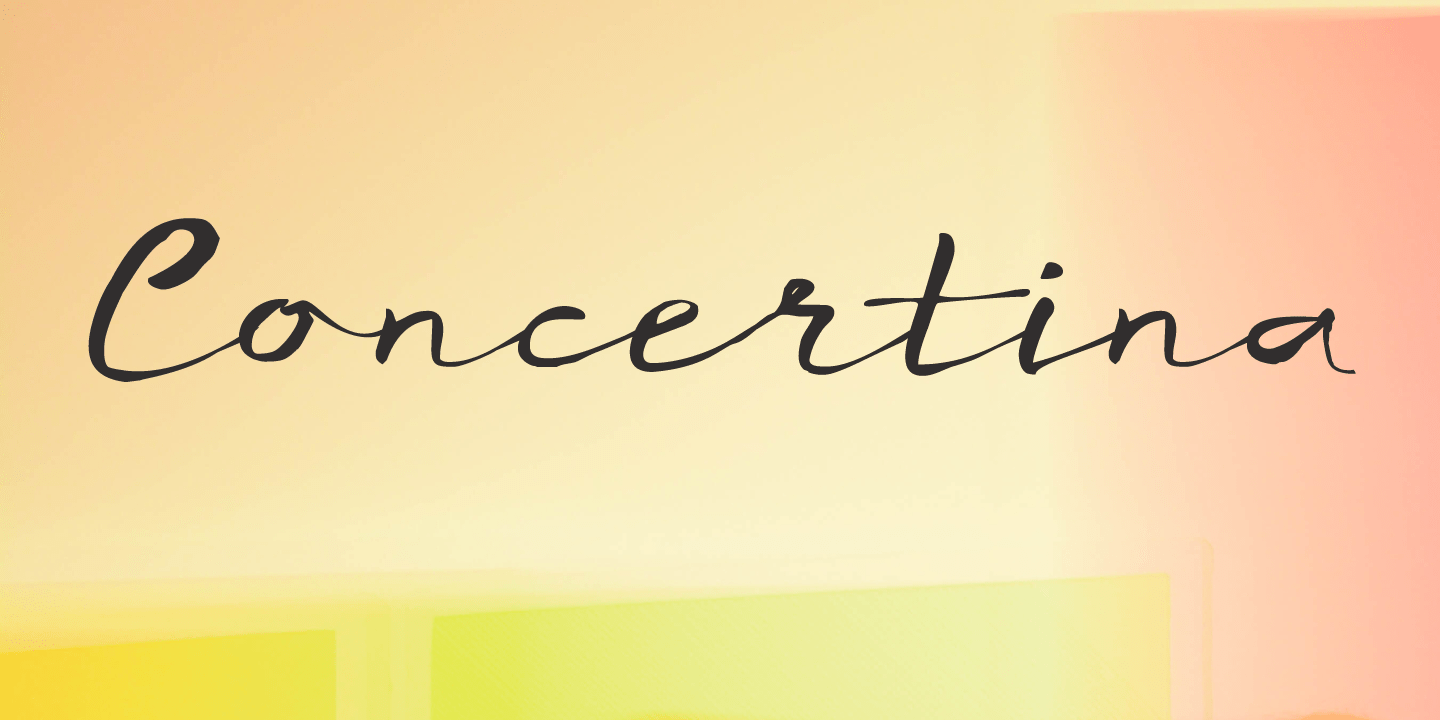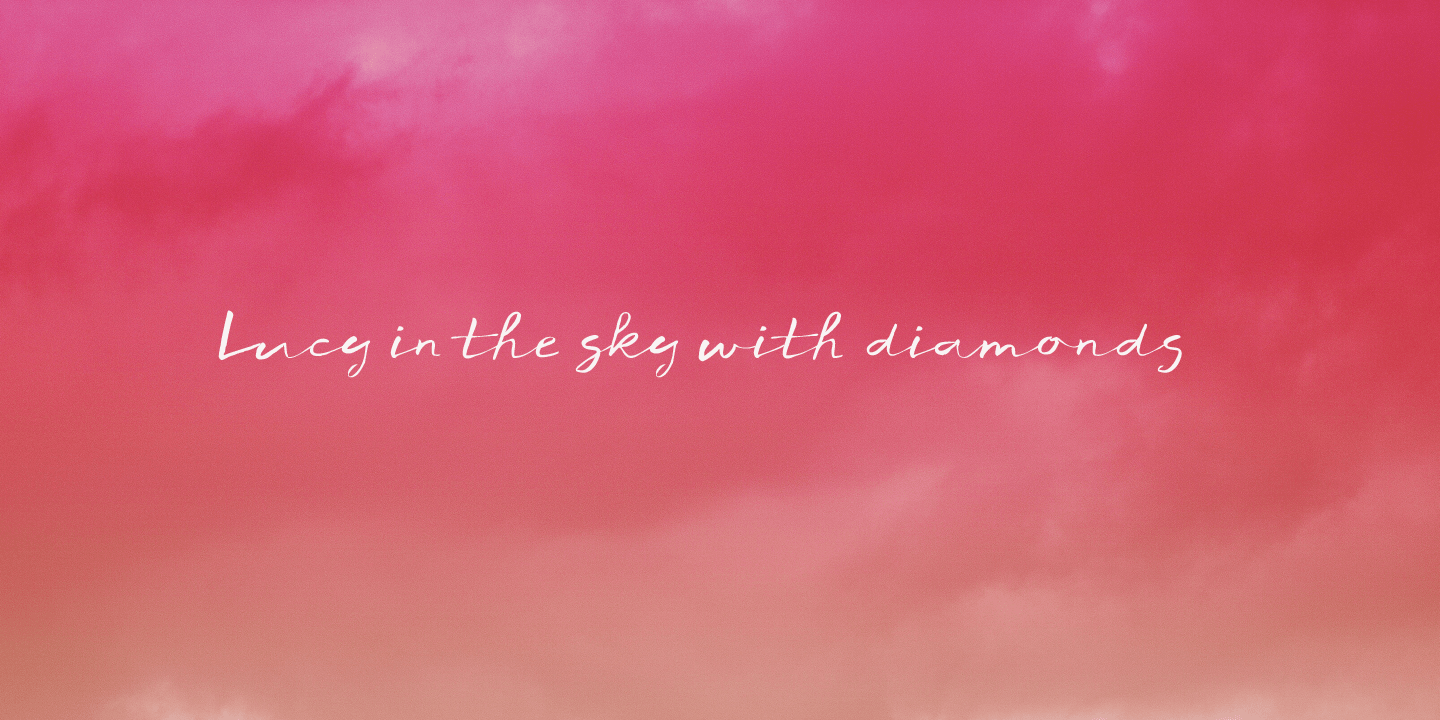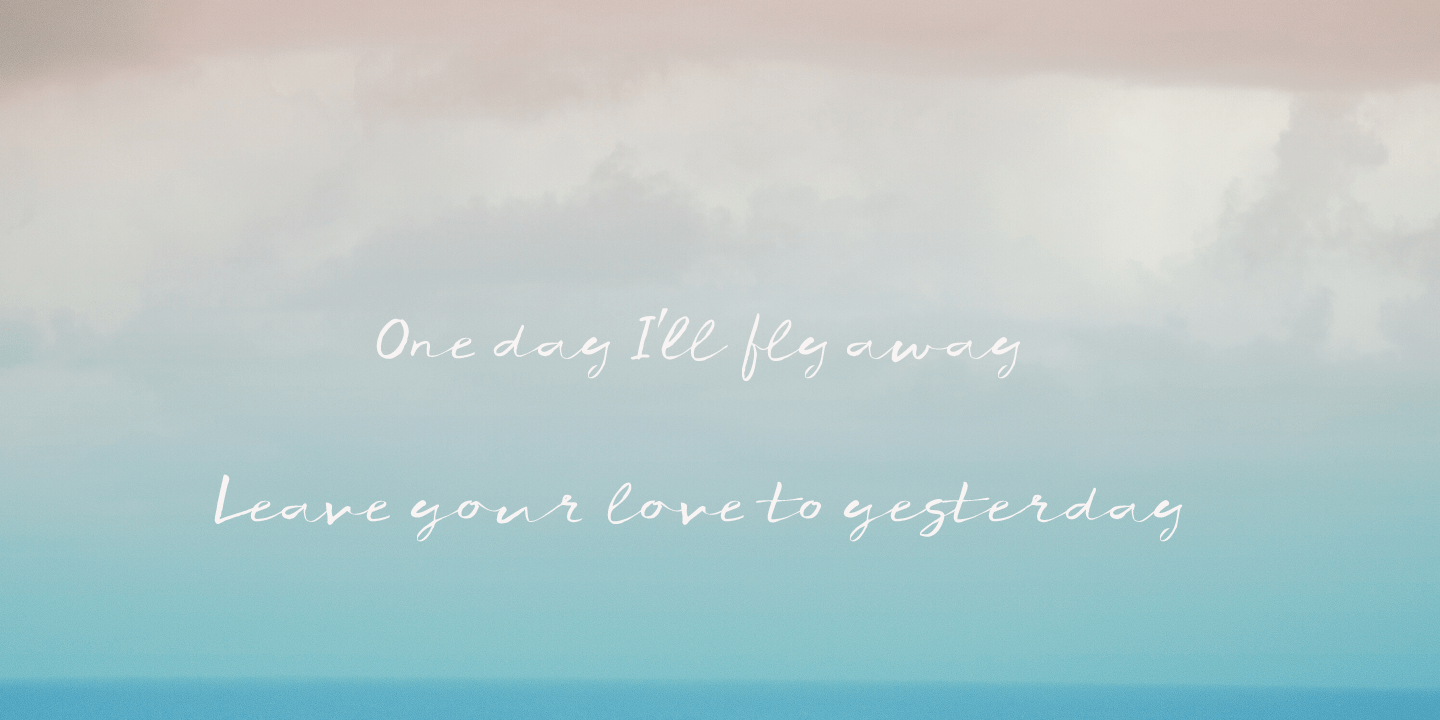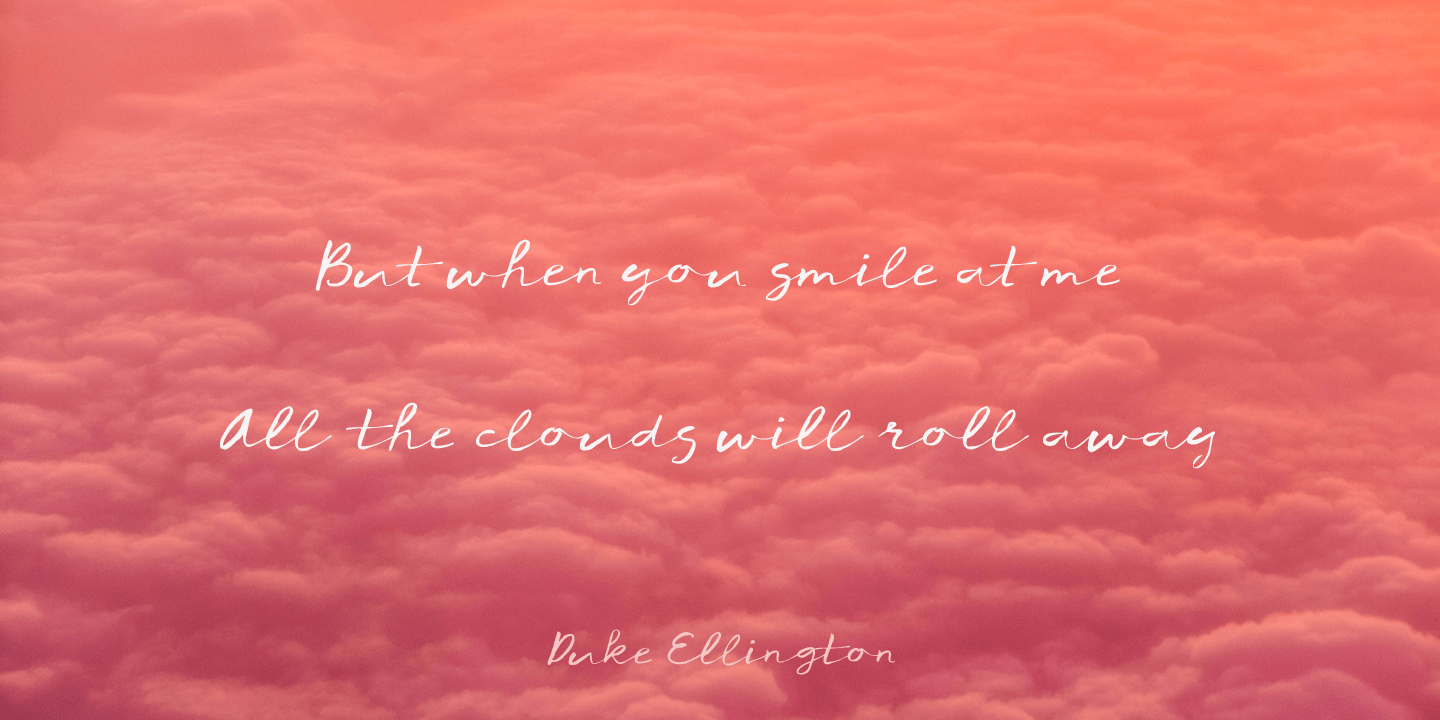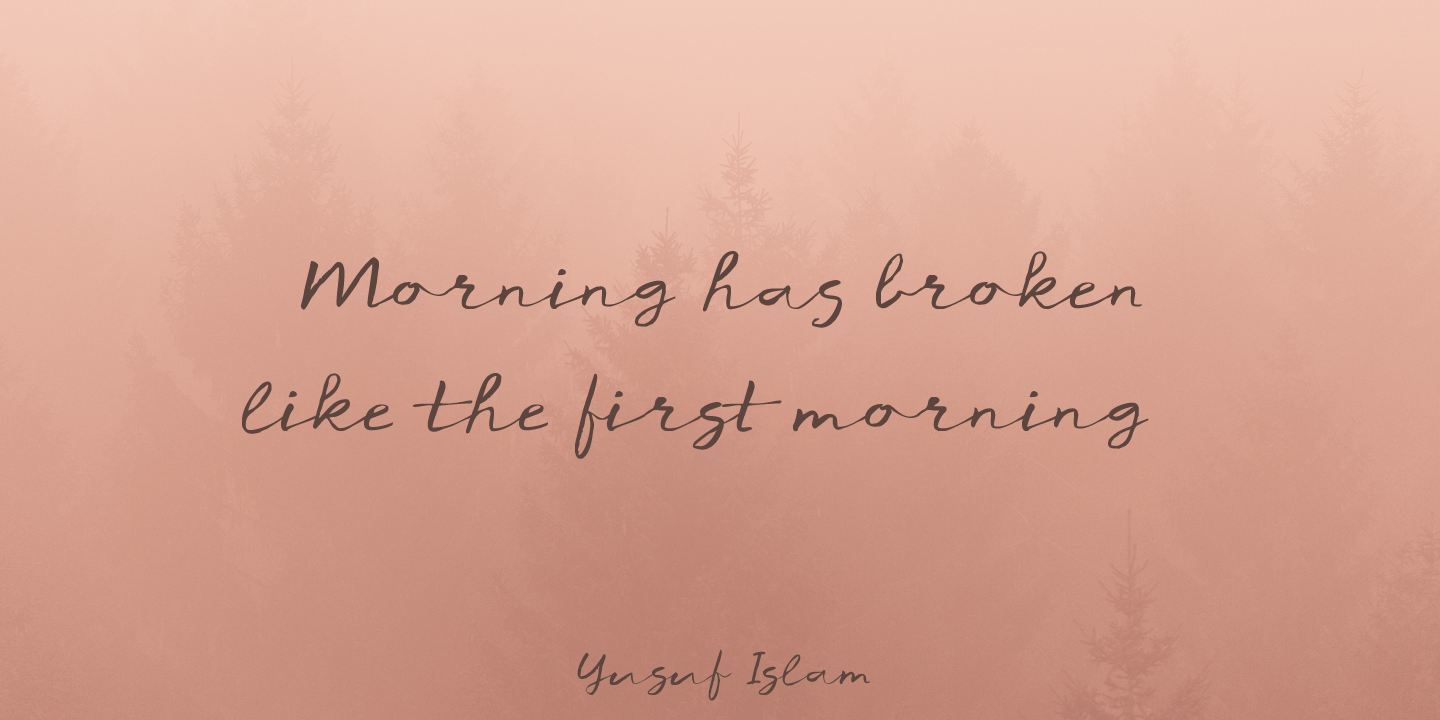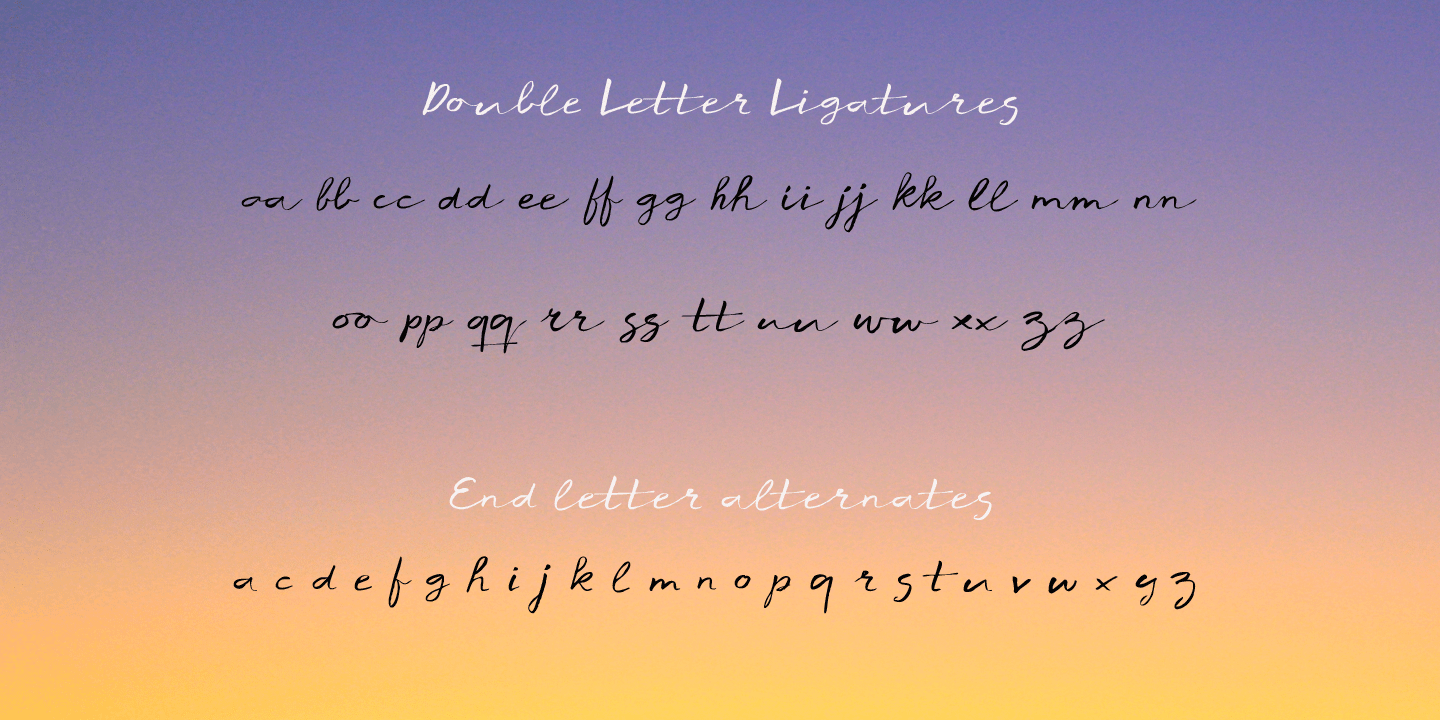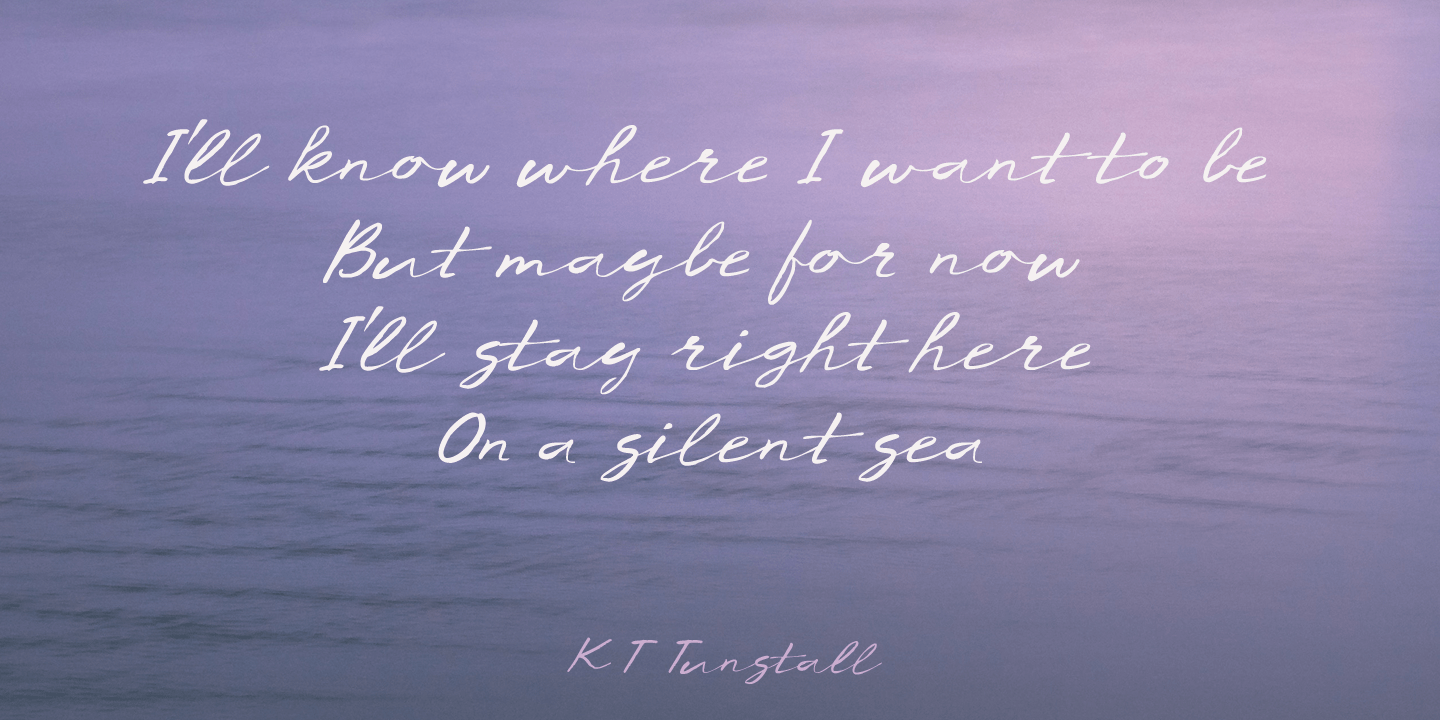
Concertina
Font Family by Hanoded
Buy NowA concertina is a kind of musical instrument, not unlike an accordeon. I just liked the name; I have to admit I?m not a particular fan of accordeon music?
Concertina is a beautiful handmade script font. A little rough, but elegant as well. It was made with a small Japanese brush pen on coarse paper. Concertina comes with double letter ligatures and end-letter alternates. To access the end-letter alternates, type the letter you want + space (and make sure to tick the ?ligatures? box in your OT environment).